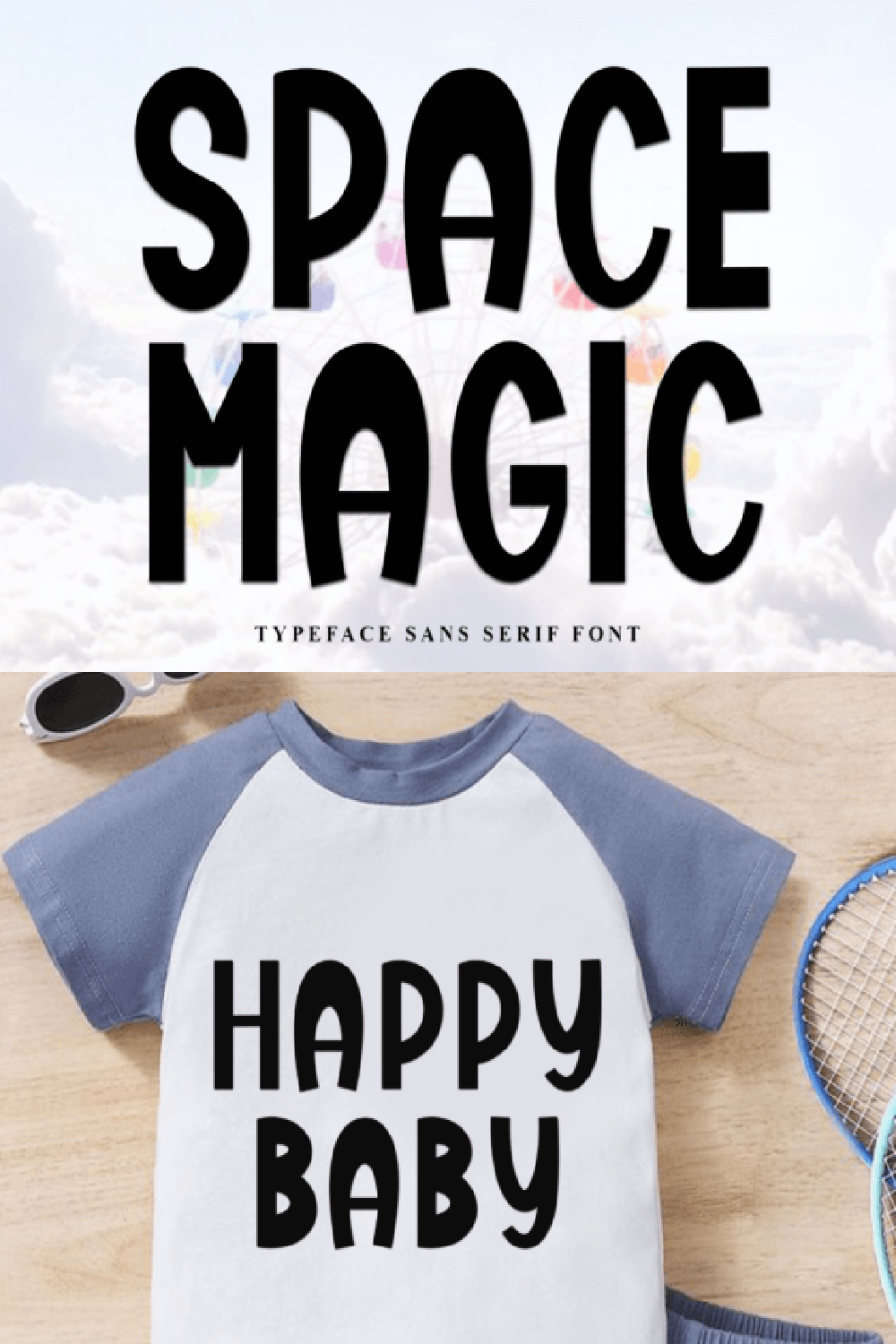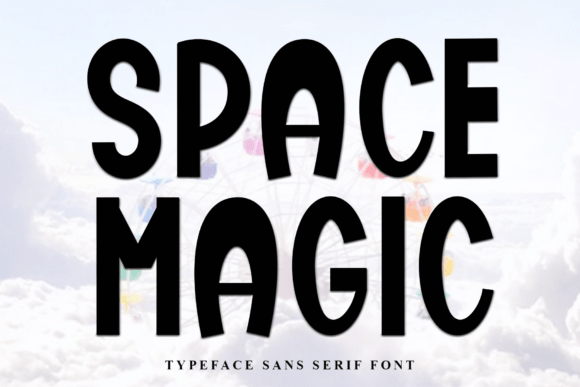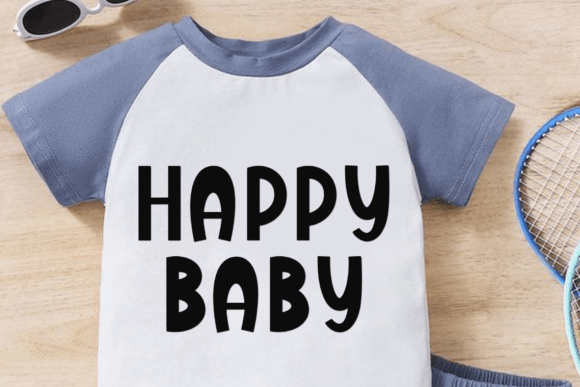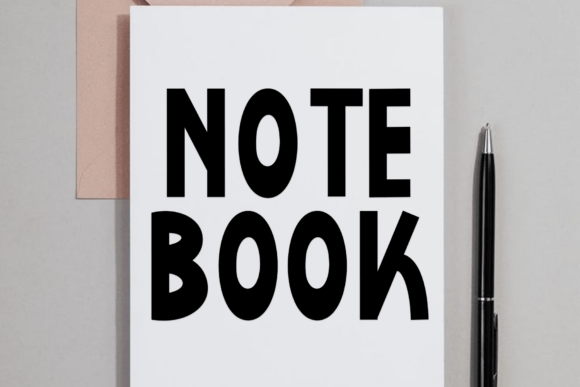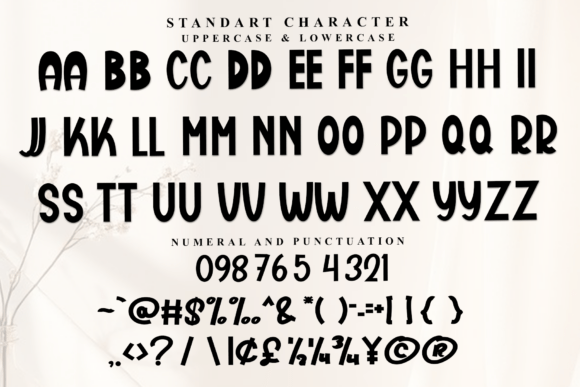
Space Magic Font
About the Space Magic Font
Crafted with precision, the Space Magic Font is ready to bring your ideas to life. Space Magic is a beautiful and eye-catching font designed with a soft, unique touch. Its distinctive strokes give it a special character, making it meaningful and versatile for future use. With various characters, it’s perfect for design projects, crafts, and other creative works.